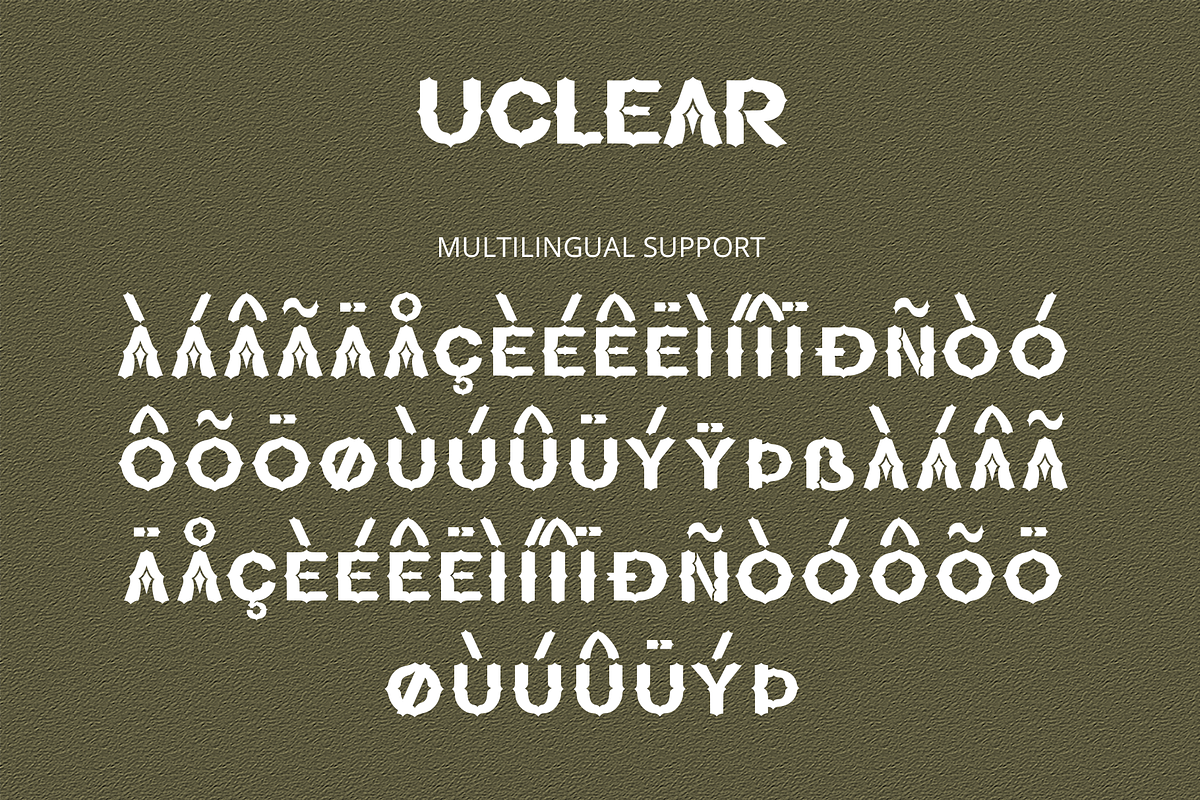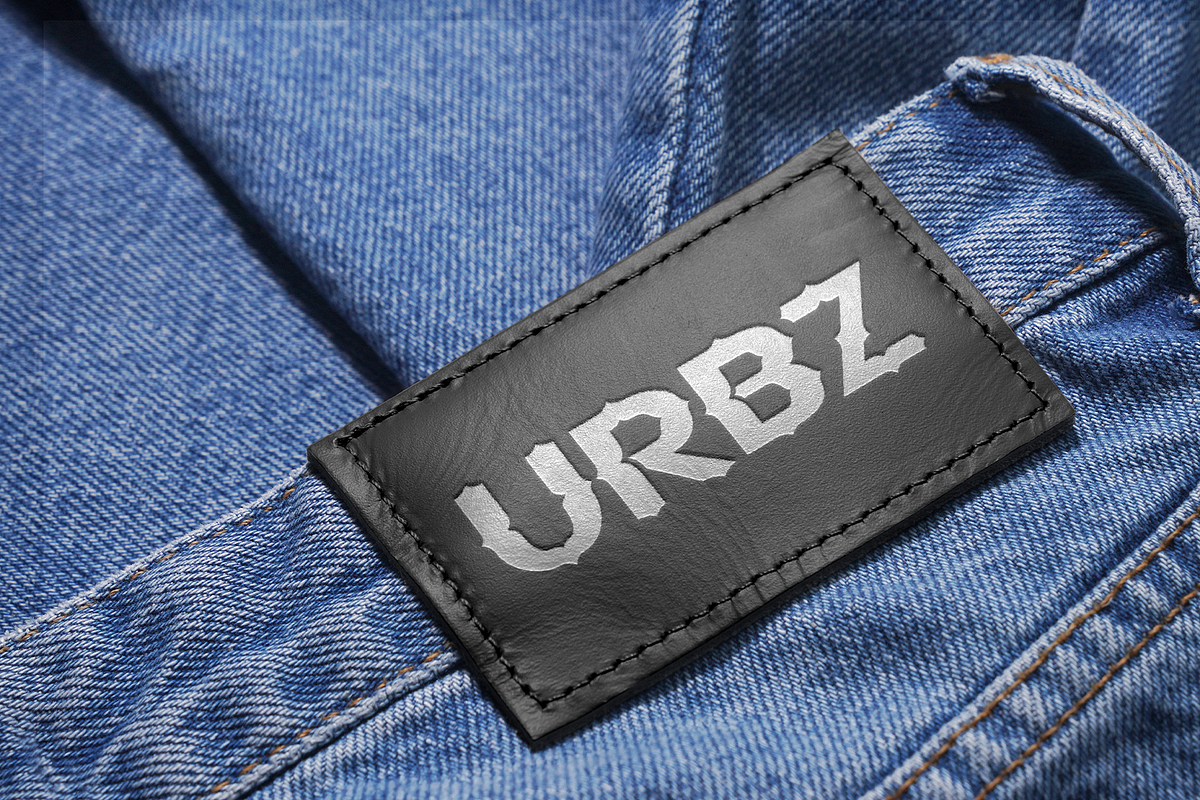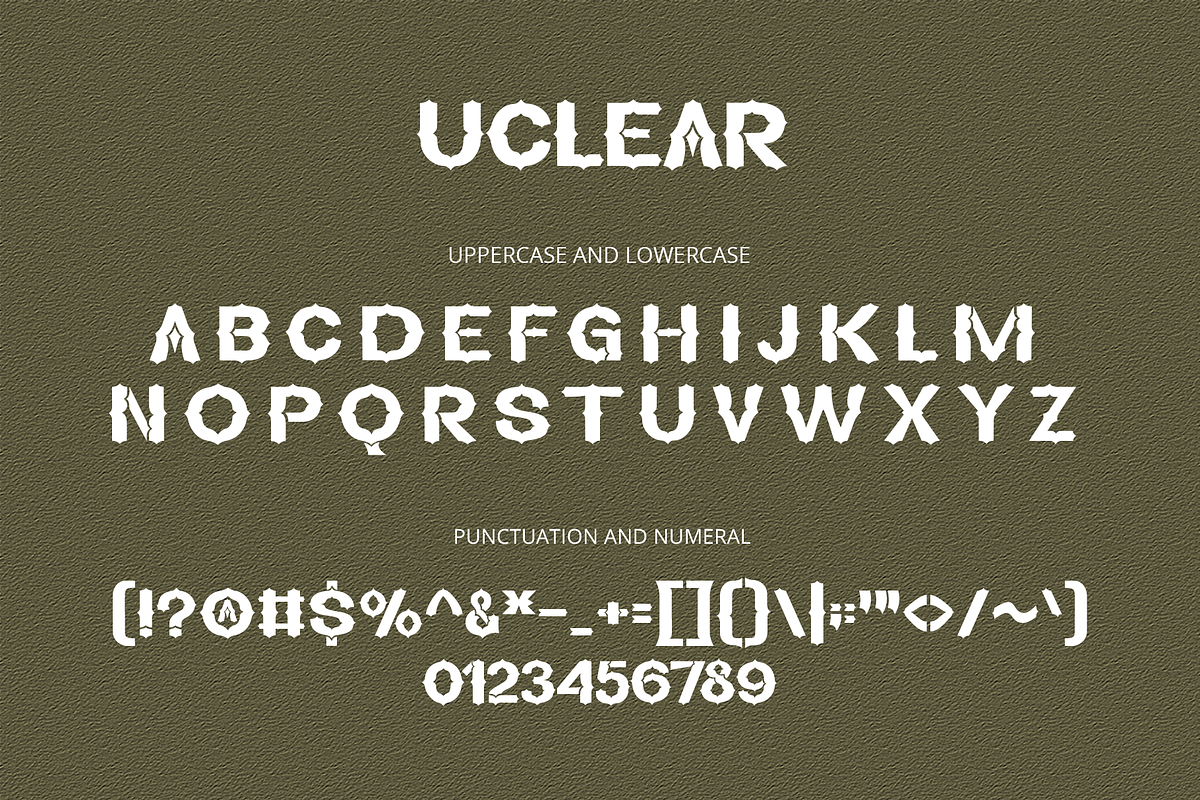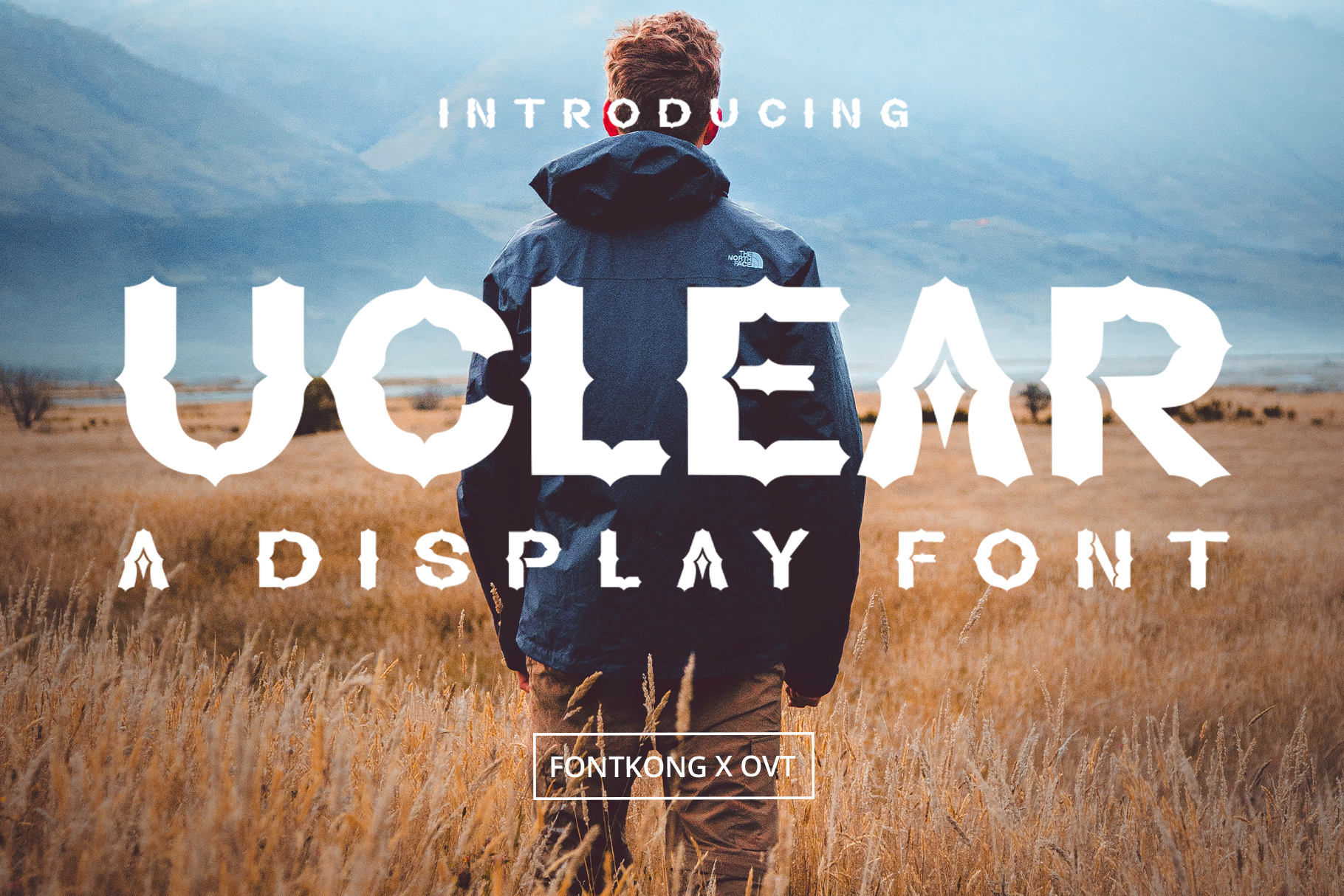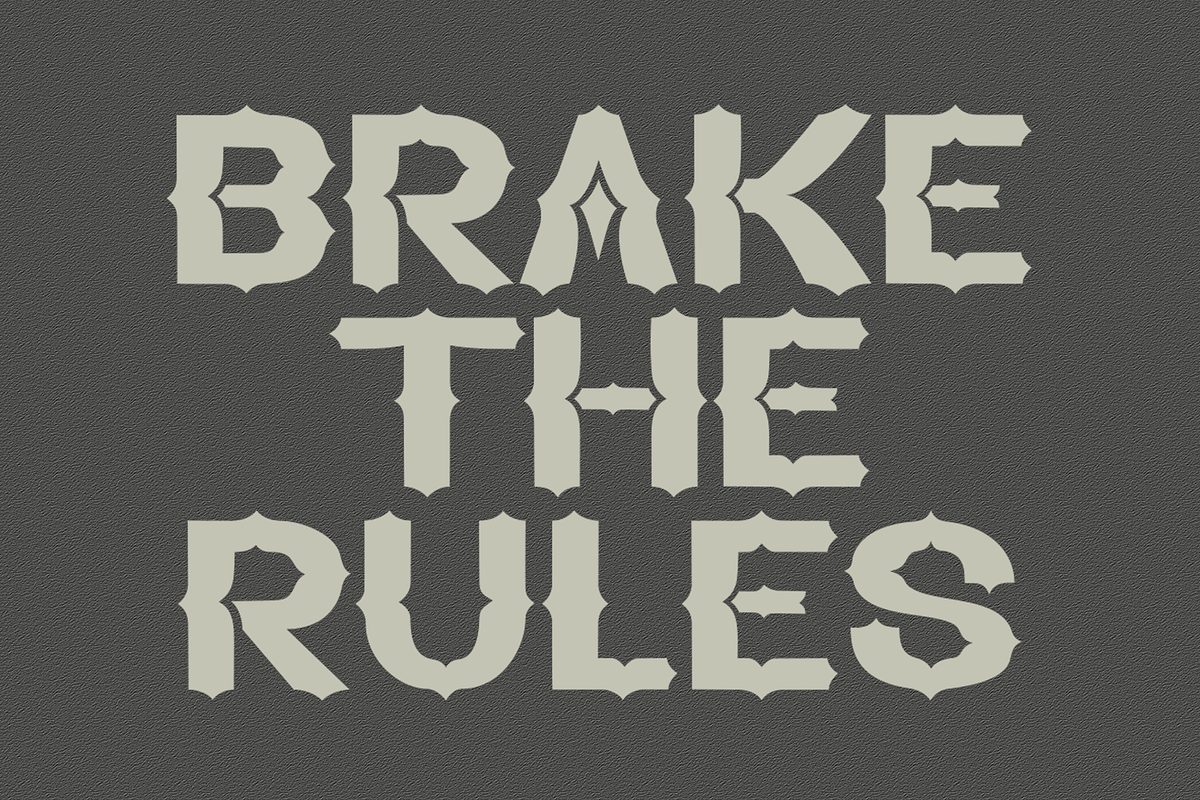
Uclear - Display Font
Introducing "Uclear," a display font designed to captivate and command attention with its bold precision and modern appeal. Perfect for graphic designers, marketers, and creatives seeking a strong visual impact, Uclear offers a striking and contemporary style that enhances any project.
Ideal for posters, logos, headlines, packaging, and branding materials, Uclear's clean lines and distinct character shapes provide a dynamic and memorable look. Each letter is meticulously crafted to ensure clarity and visual impact, making your designs stand out with confidence and style.
The "Uclear" font includes a complete set of uppercase and lowercase letters, numbers, punctuation marks, and special characters. This versatility ensures easy application across a wide range of design projects, from impactful headlines to unique brand identities.
Elevate your designs with Uclear, the display font that combines bold precision with modern appeal.